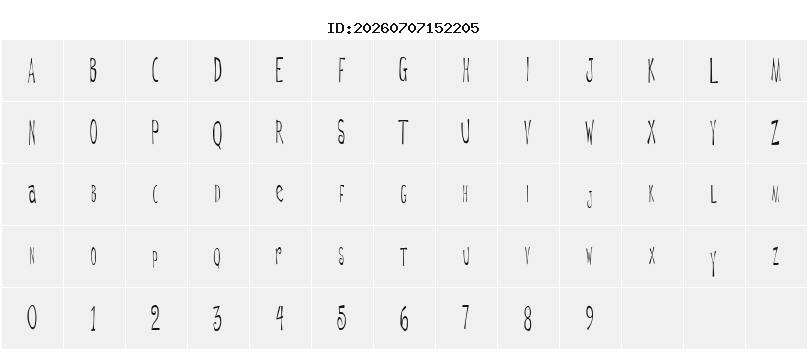
De ttnorm Preview
• Font Name: De ttnorm
• Font ID: Altsys Metamorphosis:De Regular
• Full Font Name: De Regular ttnorm
• Version: Altsys Metamorphosis:10/27/94
• PostScript Name: DeGarThin6
About De ttnorm.ttf
De ttnorm.ttf is a modern, elegant sans-serif font designed for ultimate readability and visual harmony. Perfect for branding, headlines, web design, and print materials.